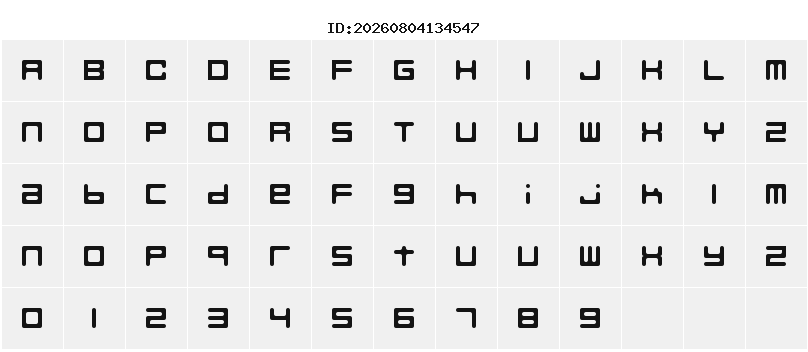
• Font Name: Nine Network logo font v2
• Full Font Name: Nine Network logo font v2 Regular
• Designer: Daniel Lyons
• Description: ‚ÄúNine Network logo font v2‚Äù was built with FontStruct ‚ÄúNine Network logo font v2‚Äù is based on ‚ÄúNine Network logo font‚Äù by ‚ÄúDaniel Lyons‚Äù (http://fontstruct.com/fontstructors/dlyons123)
About Nine Network logo font v2.ttf
Nine Network logo font v2.ttf is a modern, elegant sans-serif font designed for ultimate readability and visual harmony. Perfect for branding, headlines, web design, and print materials.